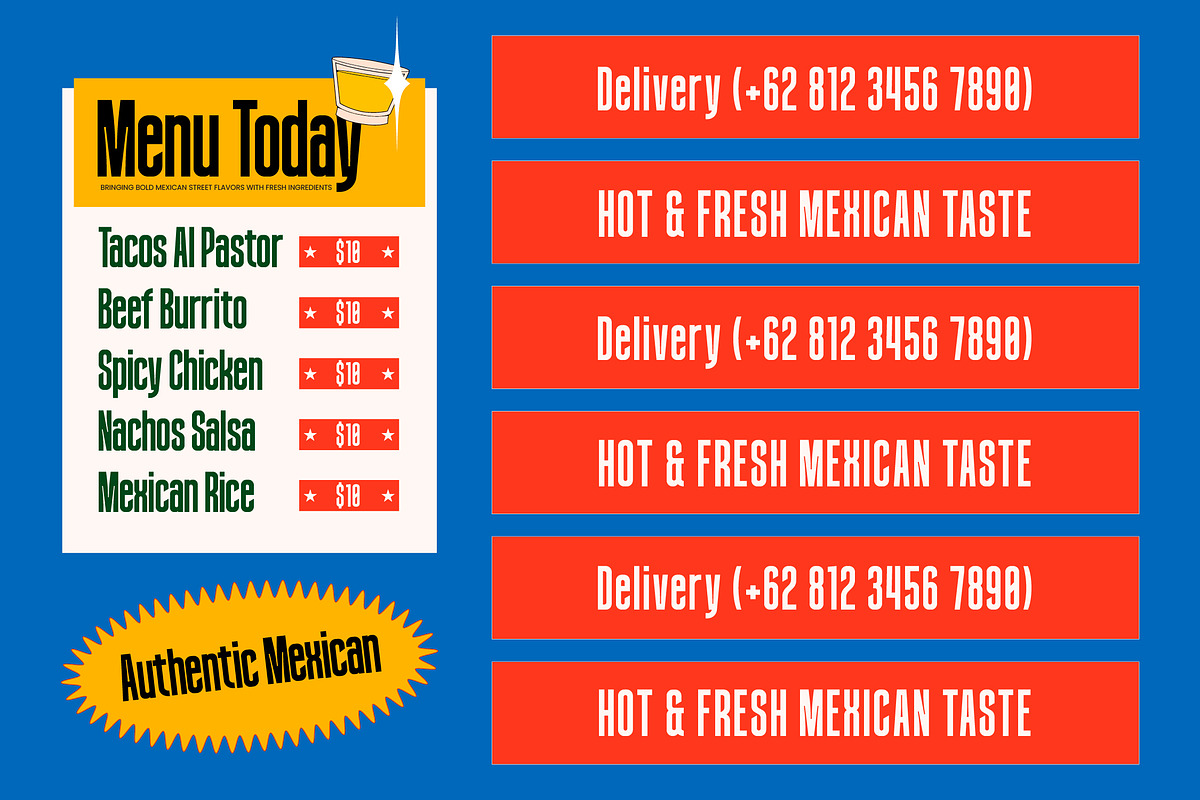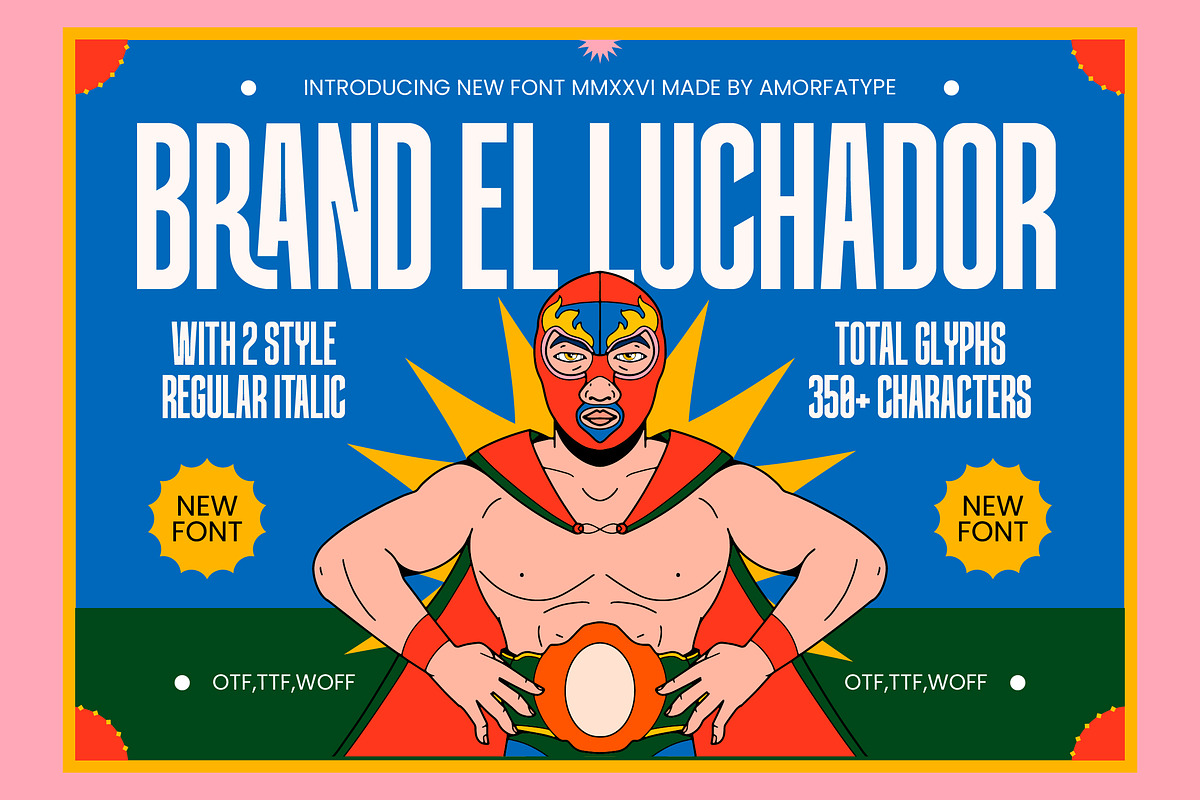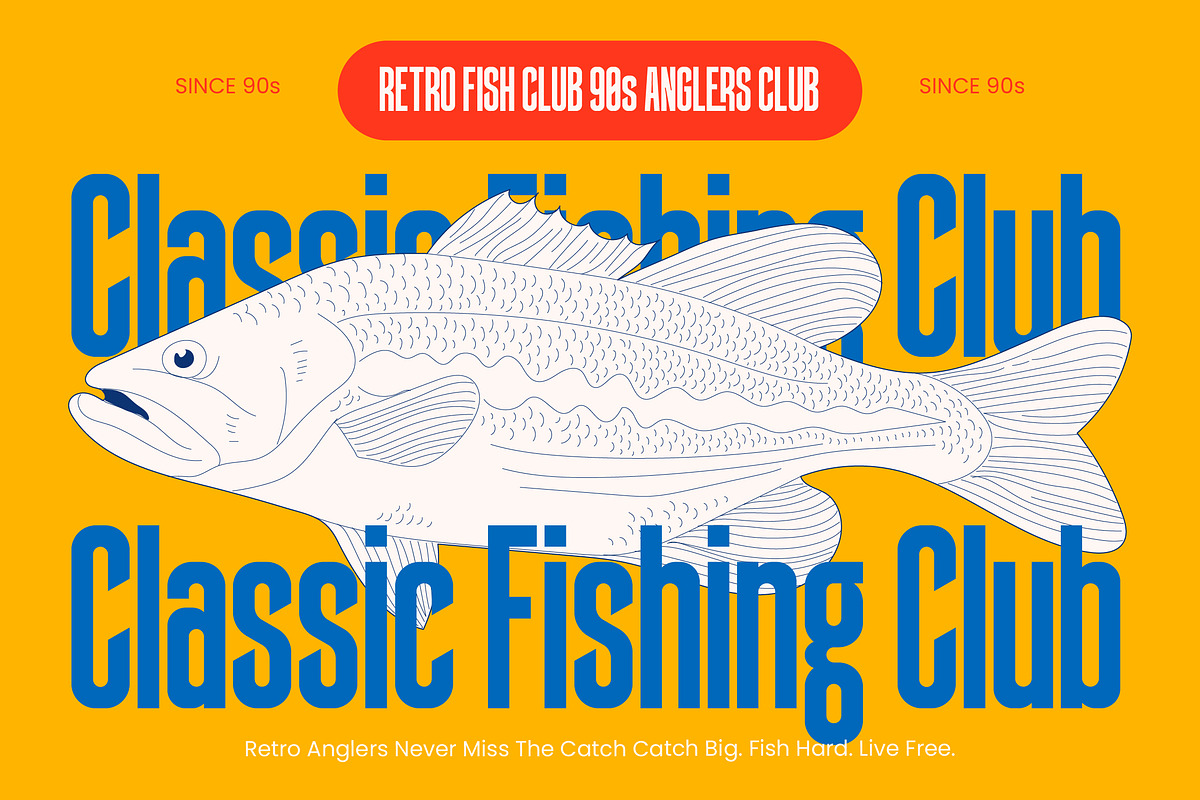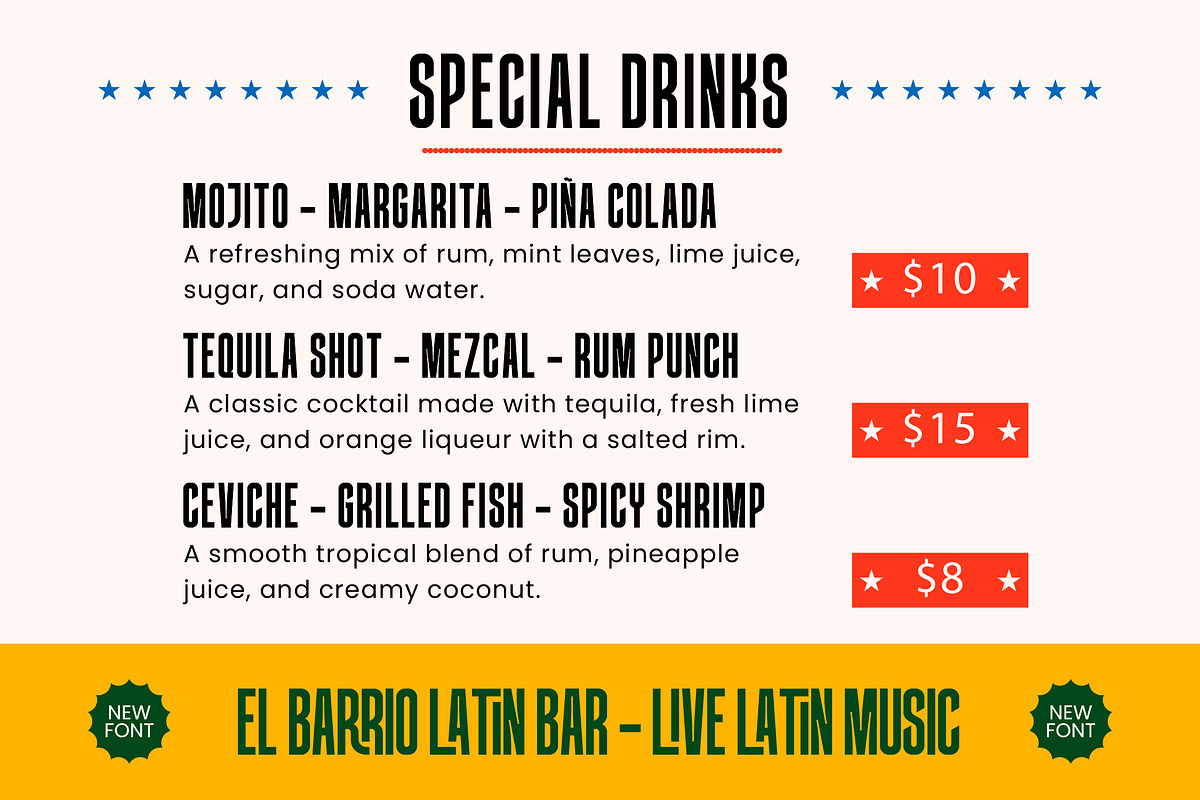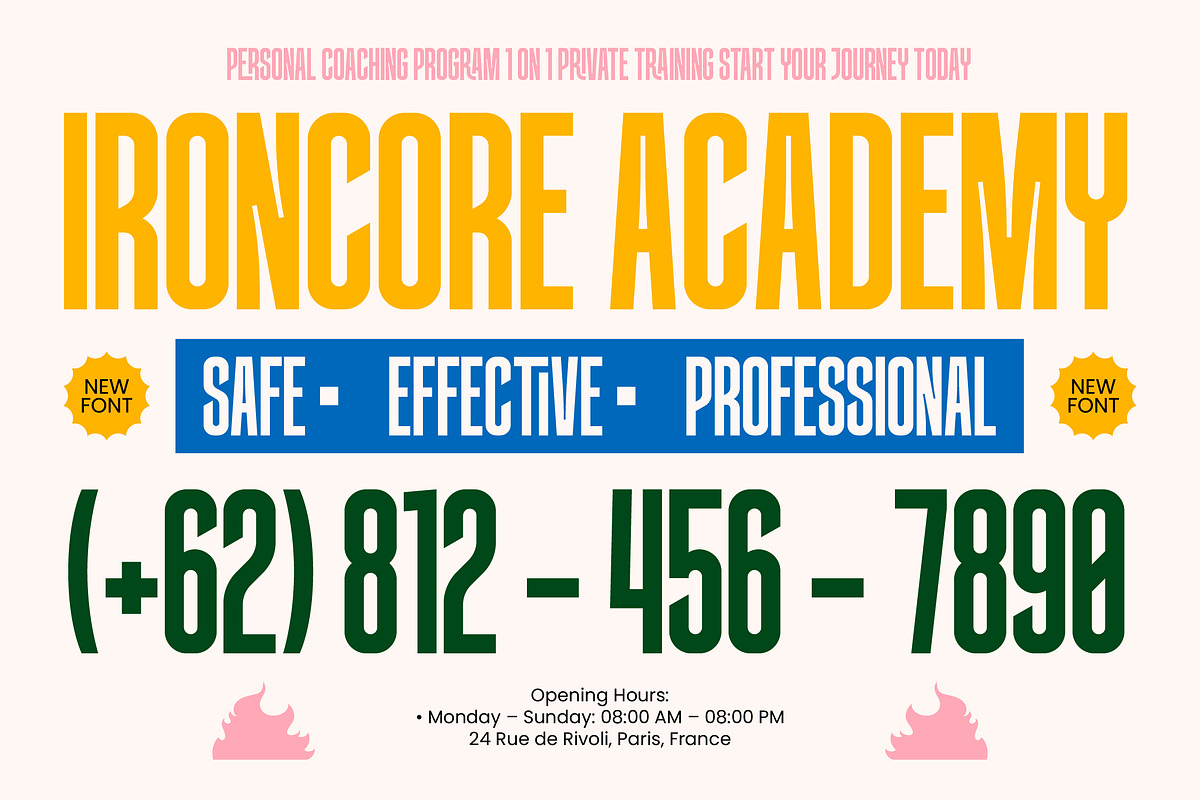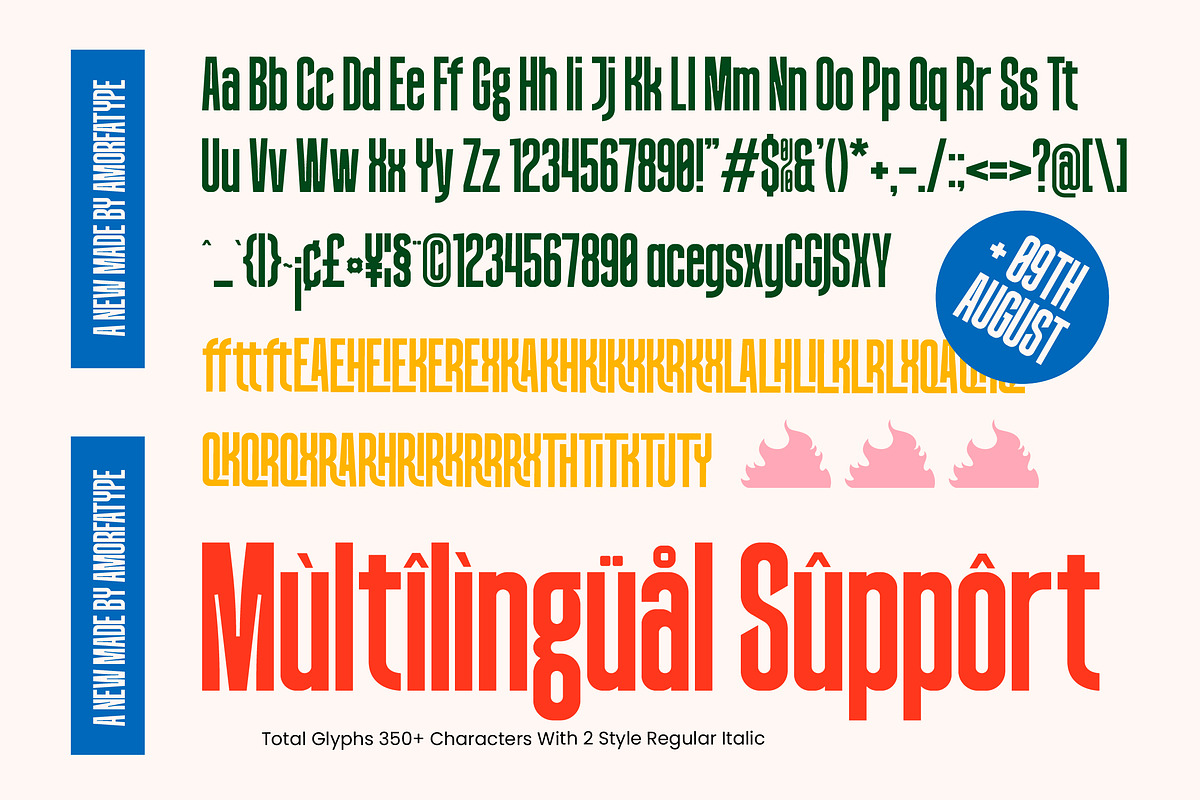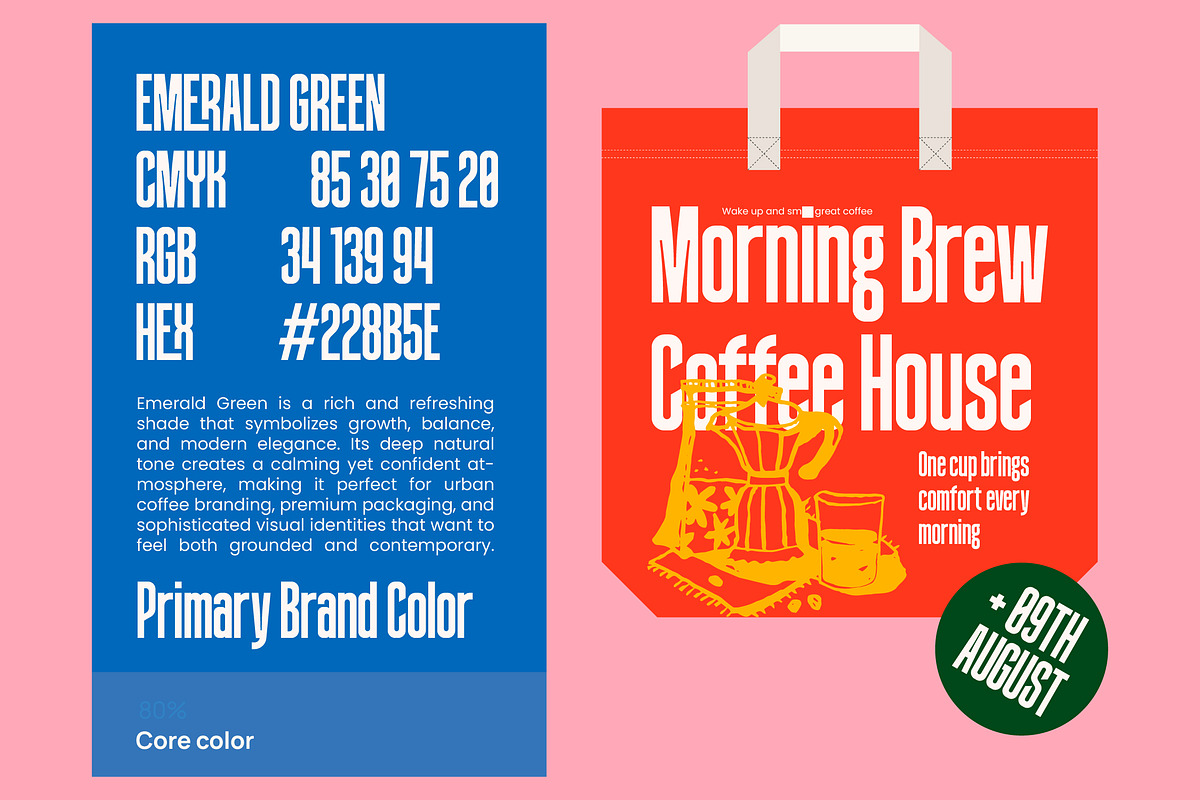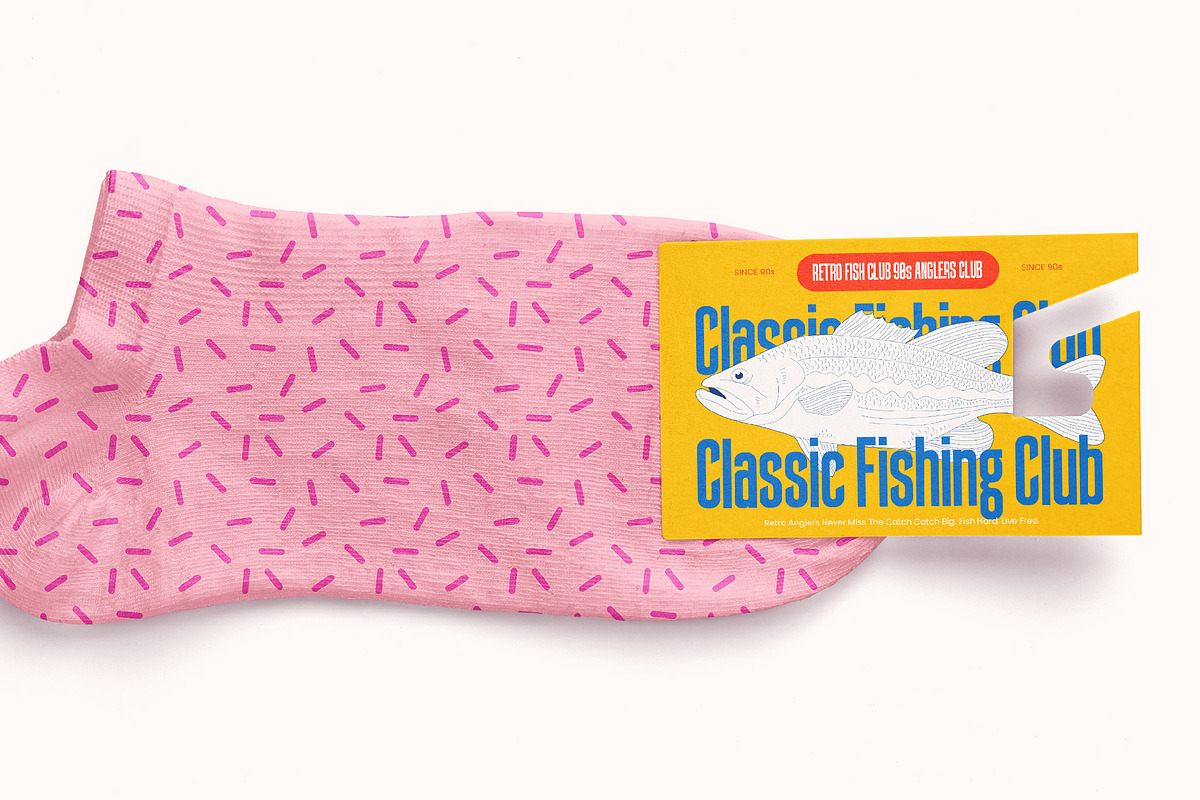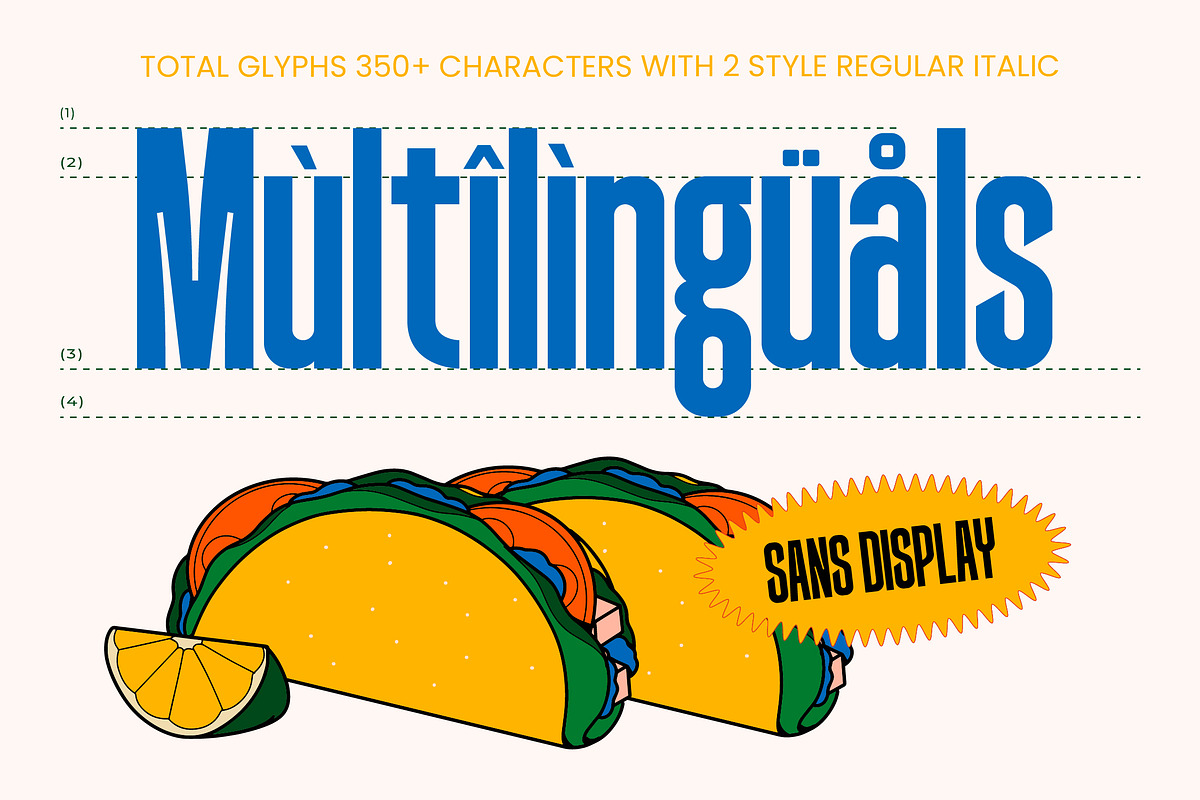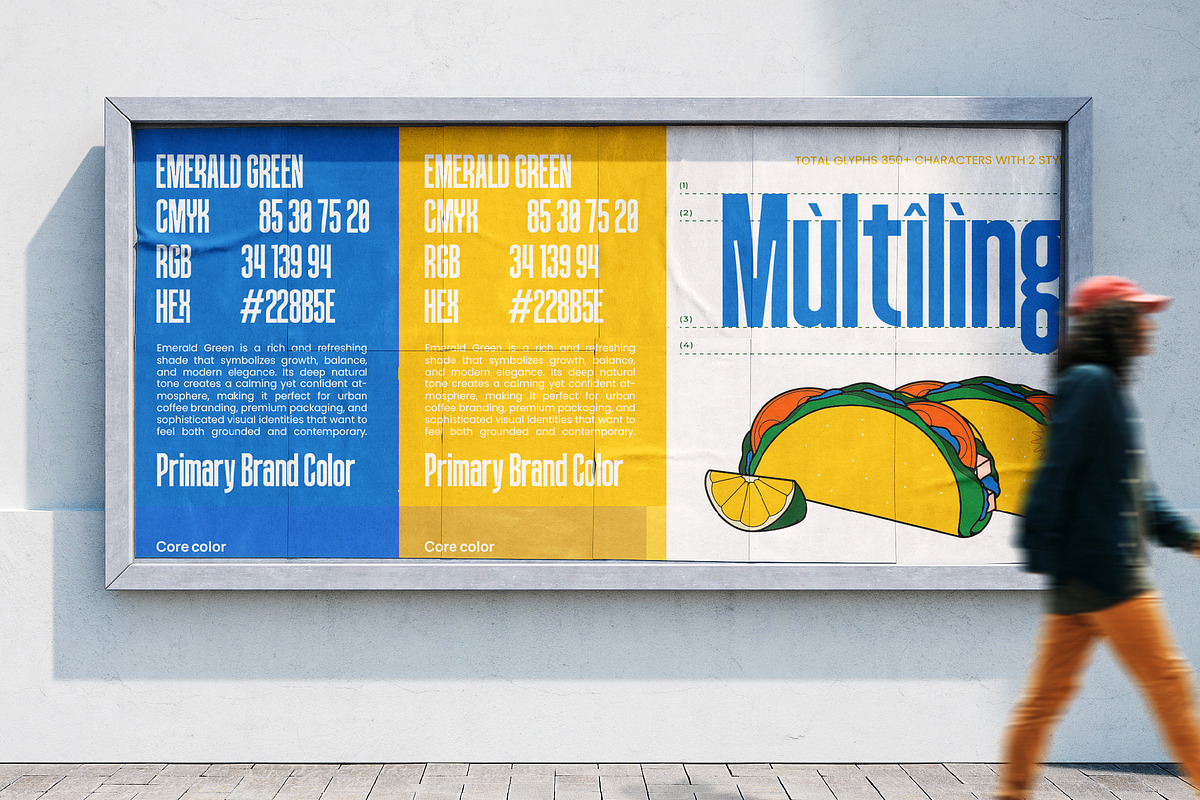
Brandel Luchador Condensed Sans
Brandel Luchador – Tall Sans Serif Display Font
Brandel Luchador is a tall condensed sans serif display font designed with a bold, energetic personality inspired by lucha libre posters, Mexican street graphics, retro advertising, and vibrant urban signage. The strong vertical proportions and compact letterforms make it perfect for large headlines, impactful branding, and eye-catching display typography.
This typeface features a playful yet powerful visual style that works especially well for restaurant branding, taco shops, coffee packaging, posters, sports clubs, festival graphics, and editorial layouts.
Brandel Luchador also includes a rich set of ligatures and stylistic alternates, giving designers more creative freedom to build expressive and unique typographic compositions.
With multilingual Latin support, the font is suitable for international projects and branding systems.
Font Features Tall Condensed Sans Serif Display Typeface Style 40 Stylistic Alternates 13 Ligatures 383 Total Glyphs Multilingual Latin Support Strong Headline Impact